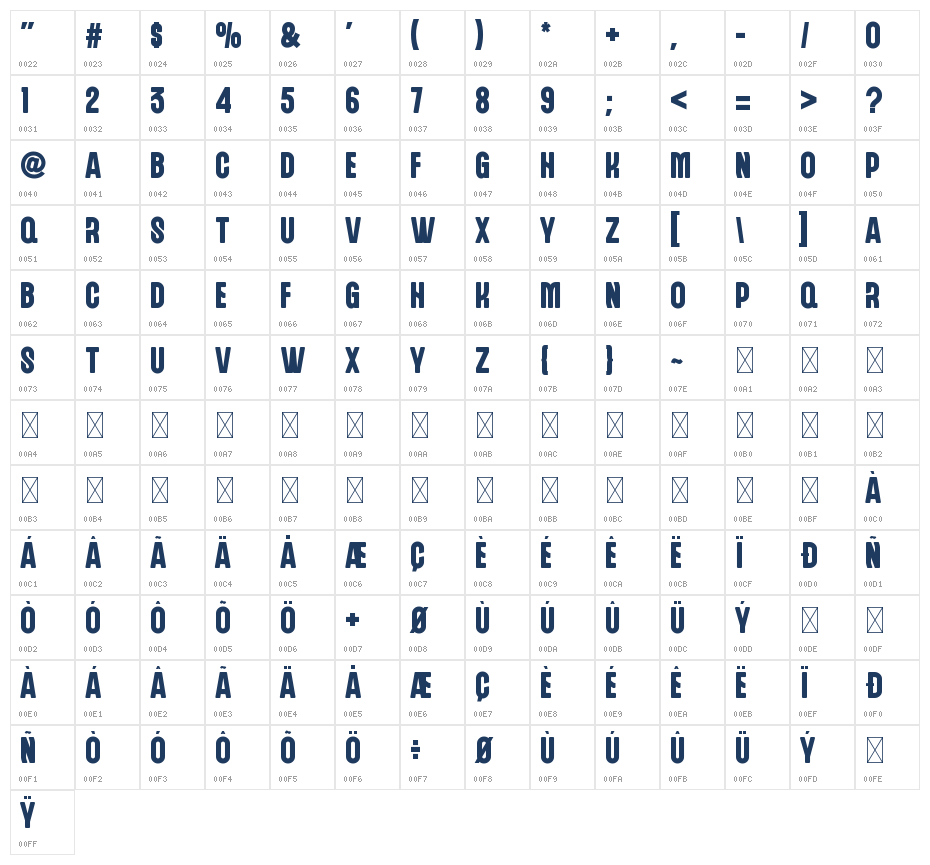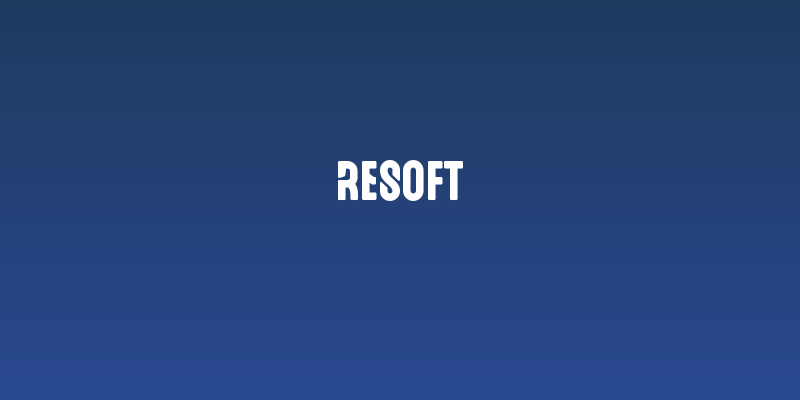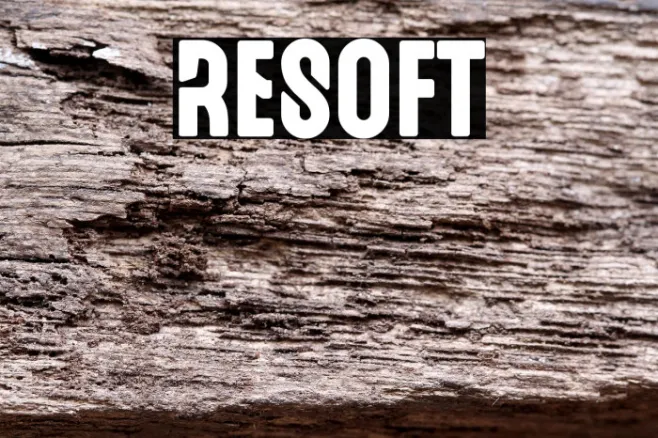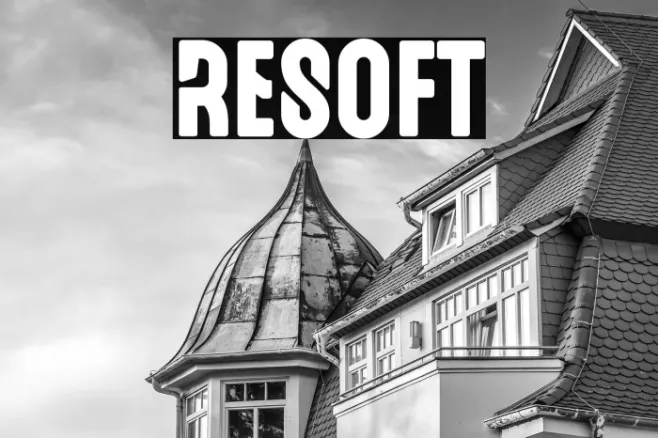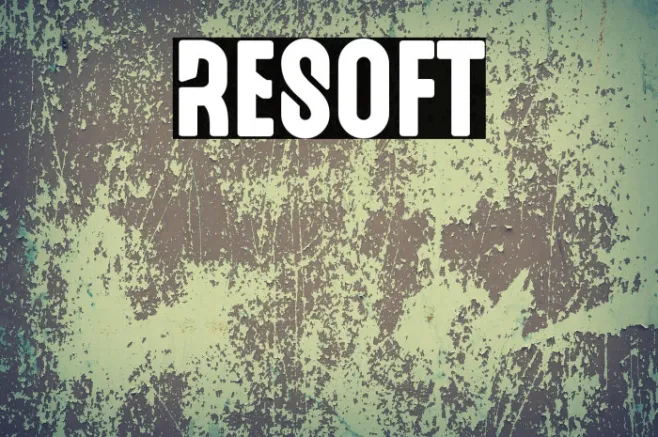
Resoft Font
Resoft Description
Bold, blocky, sans-serif font with a playful and chunky appearance, featuring uniform stroke widths and rounded edges.
| Overall Style | Modern, Playful, Bold |